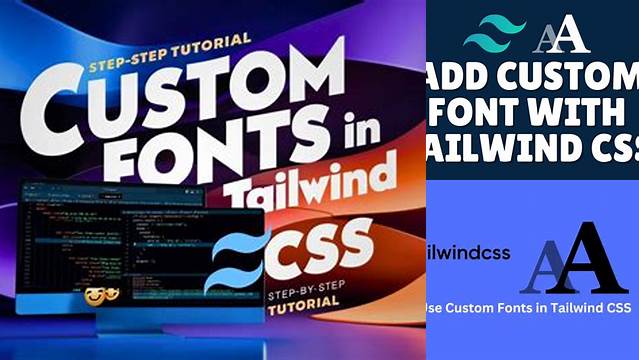
Tailwind CSS Fonts: Your Ultimate Guide
Hey guys! Ever wondered how to make your website look super slick and professional with just the right fonts? Well, you've come to the right place! We're diving deep into the world of Tailwind CSS fonts, and trust me, it's going to be a fun ride. Tailwind CSS is a fantastic framework for styling your web projects, and mastering its font capabilities can seriously level up your design game. So, let's get started and explore how to use all the amazing fonts Tailwind has to offer! This guide will cover everything from the basic font families to advanced customization techniques, ensuring your website not only looks great but also reflects your unique style.
Understanding Tailwind CSS Font Basics
Alright, let's kick things off with the basics. Understanding how Tailwind CSS handles fonts is crucial before we jump into the more complex stuff. Tailwind CSS fonts are designed to be utility-first, meaning you apply classes directly in your HTML to style your text. This approach makes it incredibly easy to manage and maintain your font styles across your entire project. The default Tailwind configuration provides a solid foundation with a set of commonly used font families and sizes. However, the real magic happens when you start customizing these defaults to match your specific design needs. So, buckle up as we explore the fundamental concepts and classes that form the backbone of Tailwind's font system.
Default Font Families in Tailwind CSS
Tailwind CSS comes with a curated list of default font families that you can use right out of the box. These fonts are chosen for their versatility and readability, making them a great starting point for any project. Some of the most commonly used default font families include sans
, serif
, and mono
. The font-sans
class applies a sans-serif font, which is perfect for body text and headings that need a clean, modern look. On the other hand, the font-serif
class applies a serif font, which adds a touch of elegance and is often used for more traditional designs. Lastly, the font-mono
class applies a monospace font, which is ideal for code snippets or any text where you want each character to have the same width. Understanding these default font families and when to use them is the first step in creating a visually appealing and cohesive design with Tailwind CSS fonts.
How to Apply Font Classes in Tailwind CSS
Applying font classes in Tailwind CSS is super straightforward. It's all about adding specific class names to your HTML elements. For example, if you want to apply the font-sans
class to a paragraph, you simply add class="font-sans"
to the <p>
tag. Similarly, to make a heading use a serif font, you'd add class="font-serif"
to the <h1>
or <h2>
tag. The beauty of Tailwind CSS is its simplicity and predictability. Once you understand the naming conventions, it becomes incredibly easy to style your text. You can even combine font classes with other Tailwind utility classes to control things like font weight, size, and color. This flexibility is what makes Tailwind CSS fonts so powerful and efficient to work with.
Changing Font Weight with Tailwind CSS
Font weight plays a crucial role in the visual hierarchy of your website. Tailwind CSS provides a range of font weight classes that allow you to easily control the thickness of your text. You can choose from classes like font-thin
, font-extralight
, font-light
, font-normal
, font-medium
, font-semibold
, font-bold
, font-extrabold
, and font-black
. Each of these classes corresponds to a specific font weight value, allowing you to create subtle variations in your typography. For instance, you might use font-bold
for headings to make them stand out, and font-normal
for body text to ensure readability. Experimenting with different font weights is a great way to add visual interest and emphasize key elements on your page. The ease with which you can adjust font weights in Tailwind CSS makes it a breeze to fine-tune the overall look and feel of your website.
Adjusting Font Size in Tailwind CSS
Font size is another essential aspect of typography that Tailwind CSS makes incredibly easy to manage. Tailwind provides a comprehensive set of text size utilities, ranging from text-xs
(extra small) to text-9xl
(extra large), giving you granular control over the size of your text. These classes are based on a sensible scale, making it simple to create a consistent and harmonious typographic hierarchy. For example, you might use text-2xl
for subheadings and text-base
for body text. The flexibility of Tailwind CSS fonts allows you to tailor the text size to fit the specific needs of your design, ensuring that your content is both legible and visually appealing. Plus, you can easily combine these text size classes with other utility classes to further refine your text styles.
Applying Font Styles (Italic, Bold) in Tailwind CSS
Tailwind CSS also makes it super easy to apply common font styles like italics and bold. To make text italic, you simply add the italic
class to the element. Similarly, to make text bold, you add the font-bold
class. These simple yet powerful utilities allow you to emphasize specific words or phrases, drawing the reader's attention to key information. For example, you might use <em>italic</em>
So there you have it, guys! Everything you need to know about fonts in Tailwind CSS. It's a powerful system that gives you a ton of control over your typography, and with a little practice, you'll be creating stunning designs in no time. Happy styling!